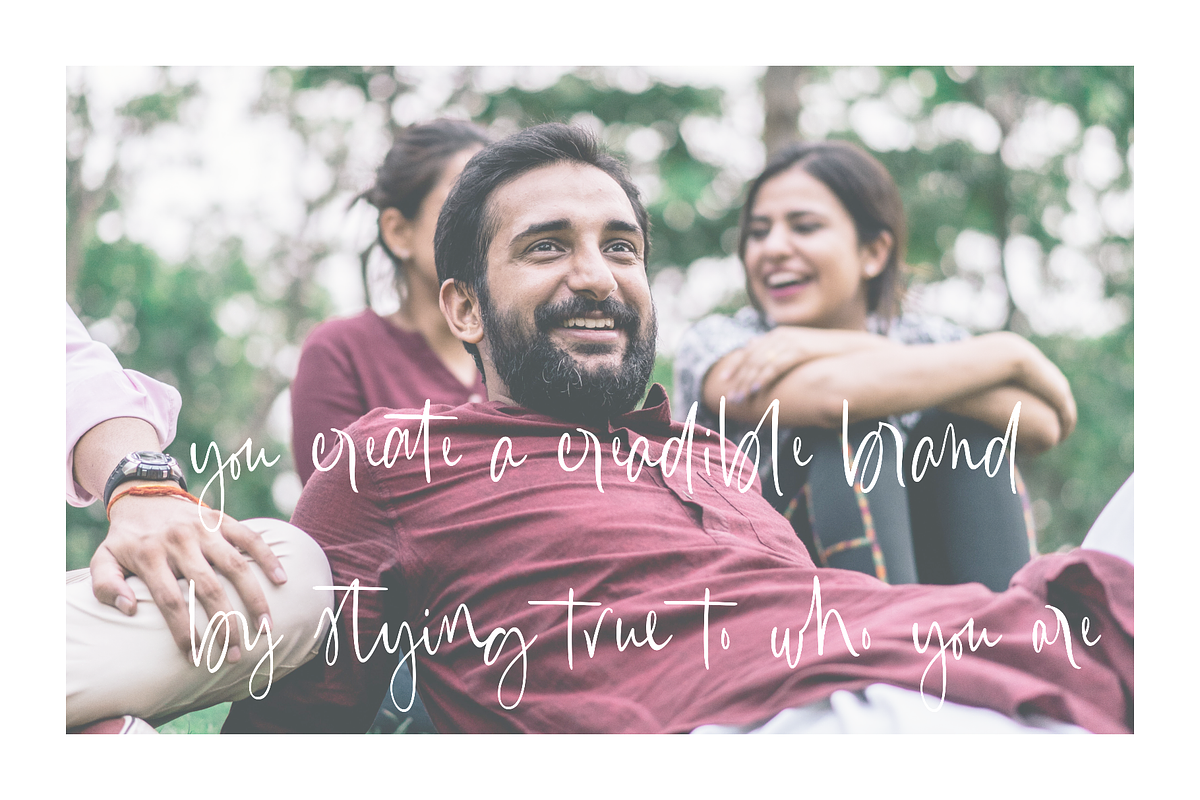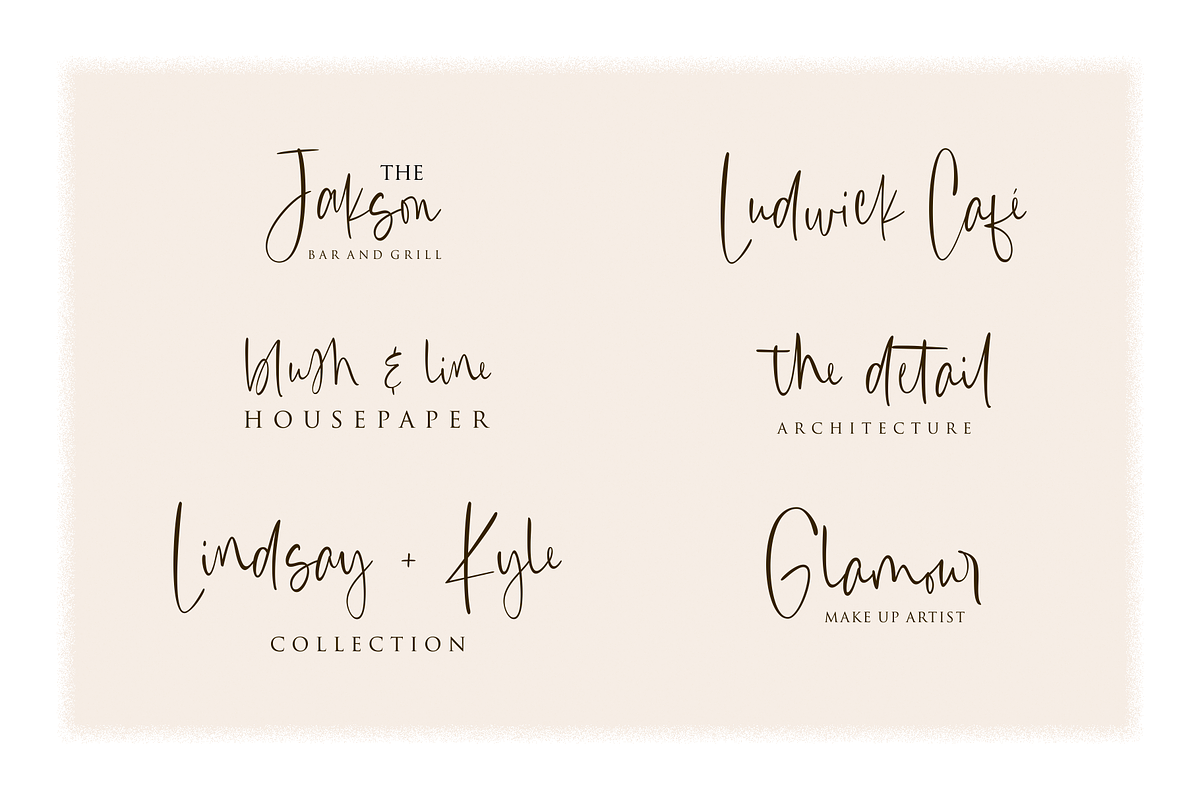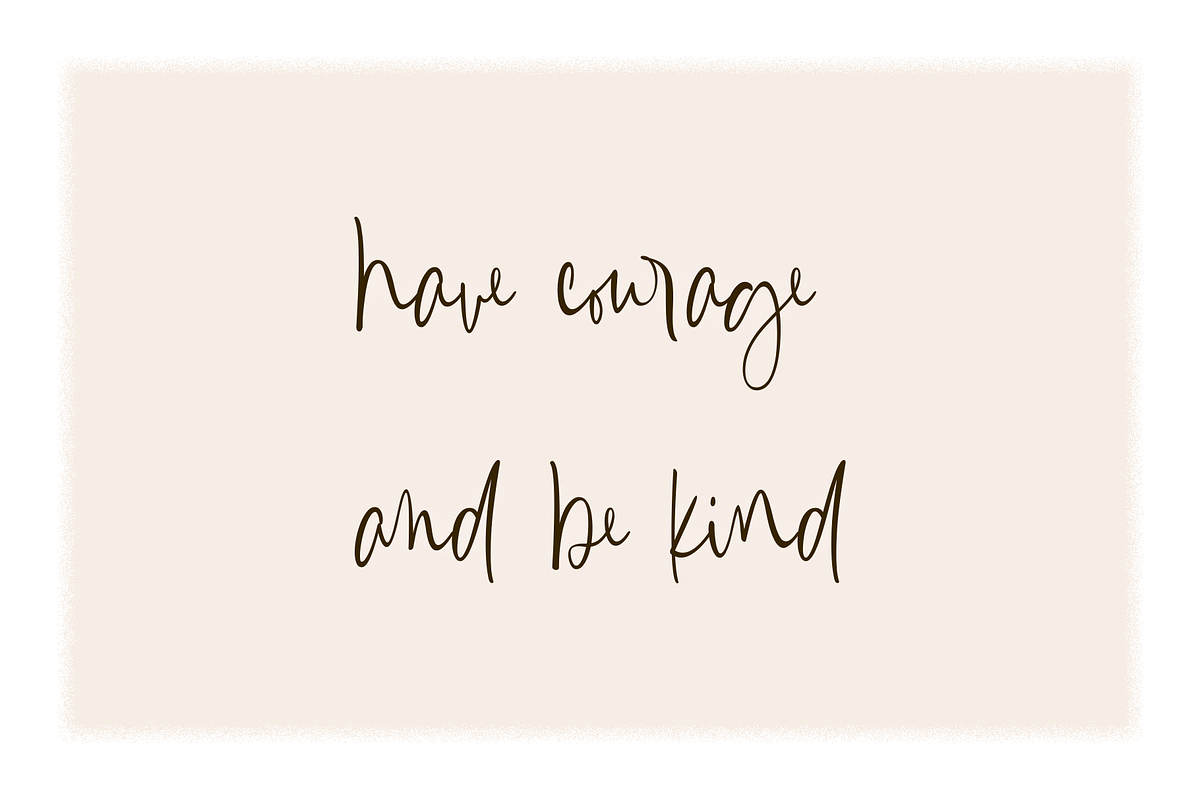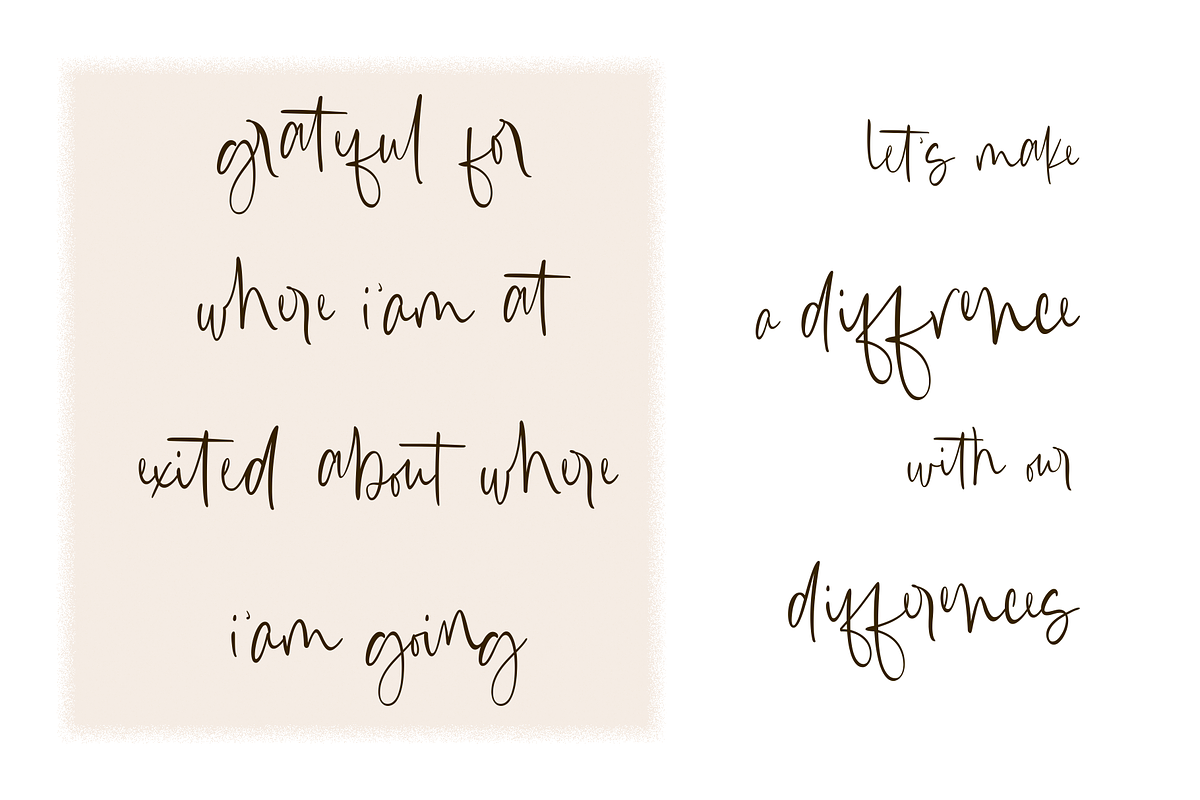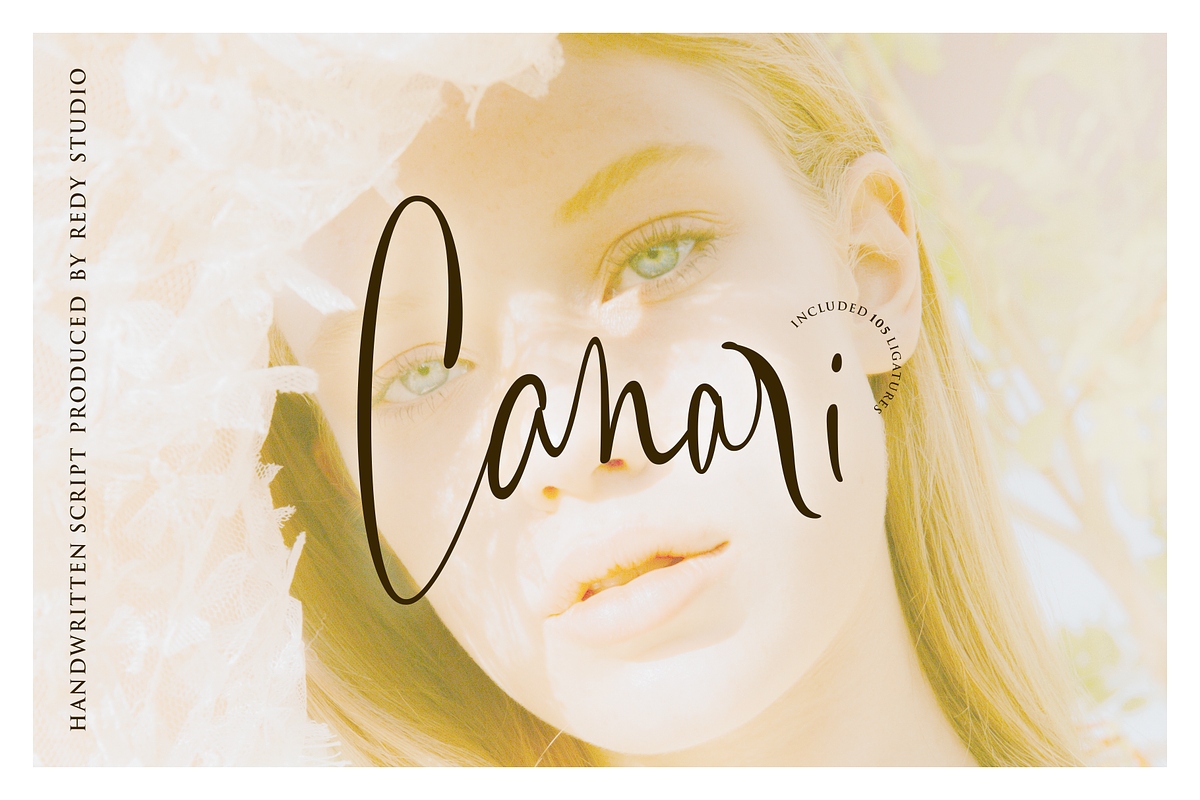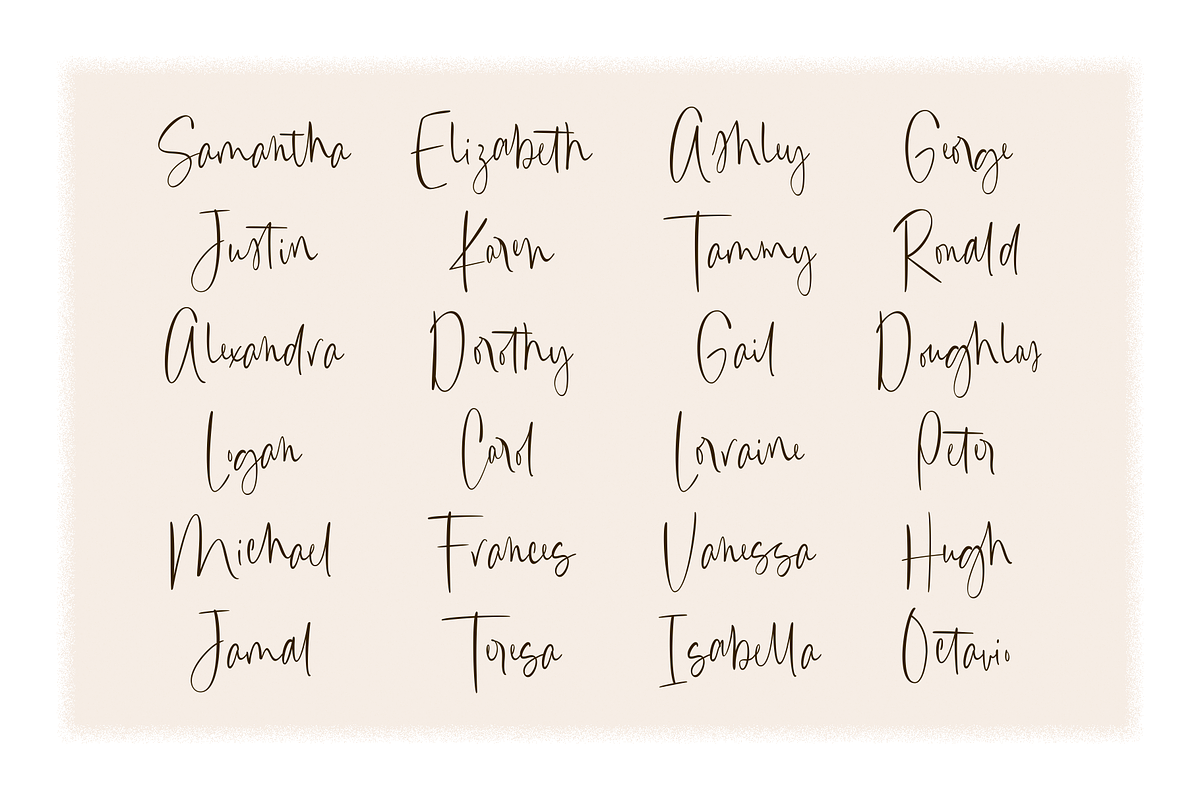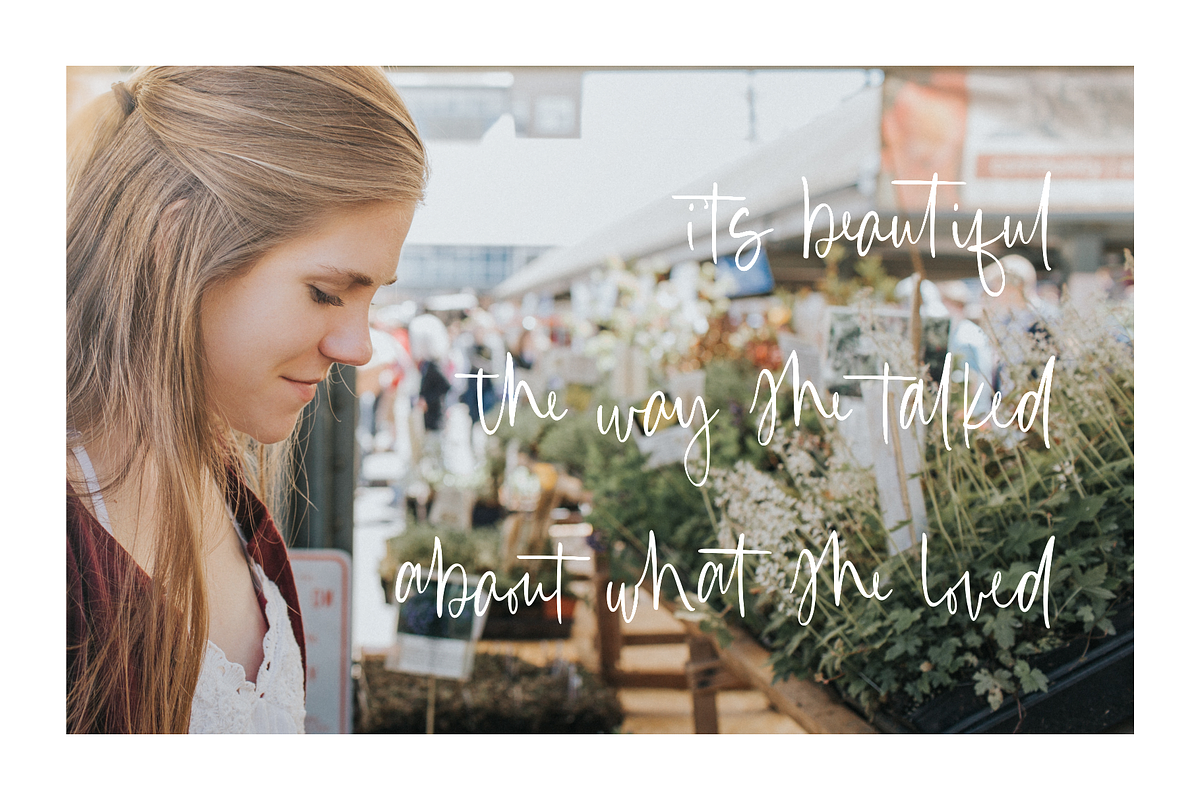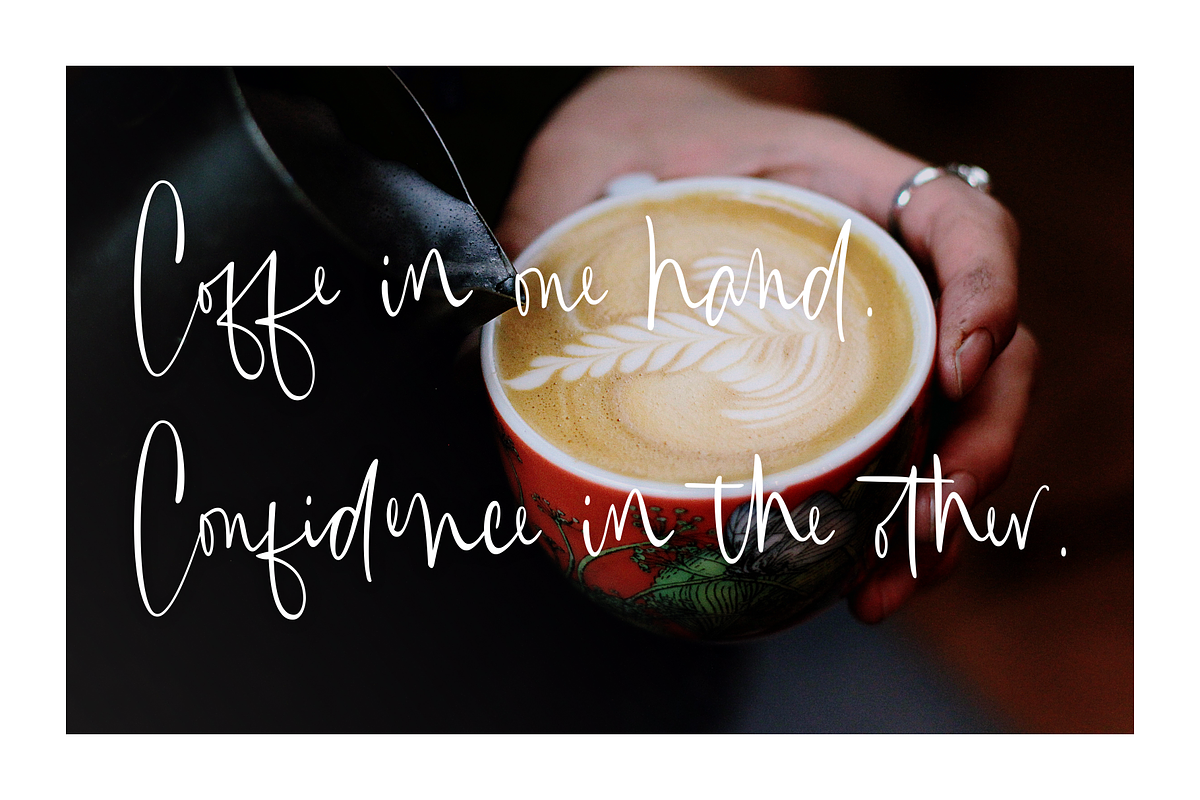
Canari - Modern Calligraphy Fonts
Canari, modern calligraphy font is of great interest to all graphic designers and die-hard fans of handwriting. Canari comes with 105 extravagant ligatures, so you can give your work the personal touch it deserves. It is great for expressive projects such as using it for a logo design, wedding invitation design, social media headers, product packaging, and much more! If you are looking for a condensed font that is perfect for use as social media headers or logos then Canari would definitely be the perfect choice for you. Just take a look at this example above and you will definitely fall in love with this font!
A full set of upper & lowercase characters
Numbers & punctuation
105 Extravagant ligatures
- Canari comes with 105 extravagant ligatures, so you can give your work the personal touch it deserves.
- A full set of upper & lowercase characters
- Numbers & punctuation
- 105 Extravagant ligatures
- Multilingual symbols
- Canari script Regular
Why Canari - Modern Calligraphy Fonts is worth a look
Canari - Modern Calligraphy Fonts by RedyStudio fits naturally into Branding, posters, packaging, typography.